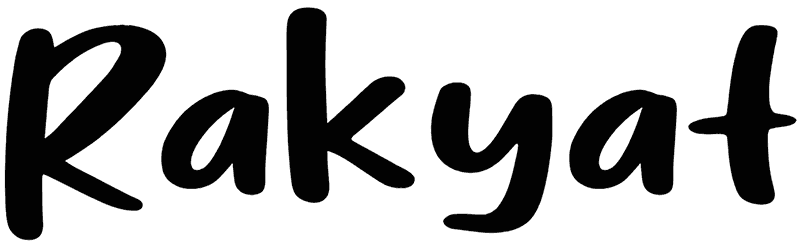
Rakyat Font
While using a summer font with a personalized look is really inevitable in many graphic projects, many designers have difficulties finding a modern handwritten font, such as Rakyat, that suits their needs. We offer you to pick up and include it in posters, brochures, logos, menus, and flyers.
One of its numerous advantages is carrying a sense of dynamic, jauntiness, and innovation, so you can boost the quality of your artwork.